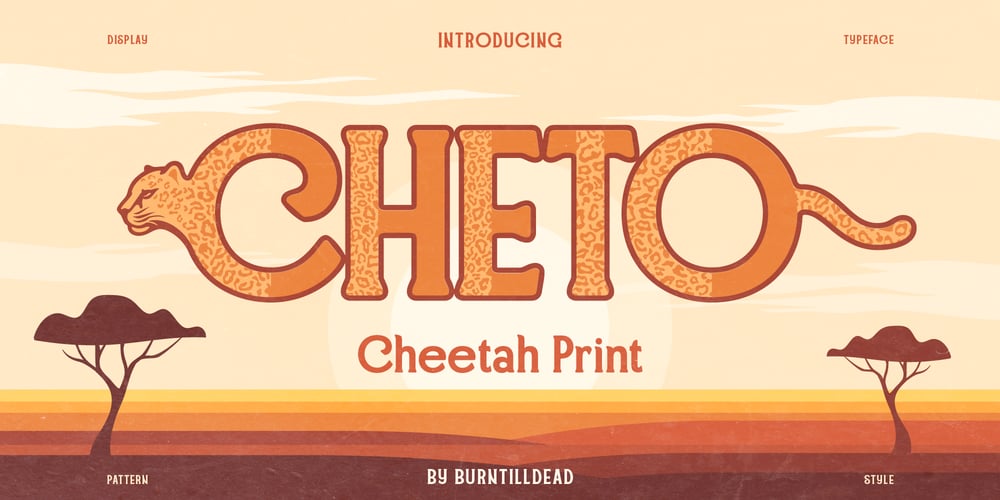
Cheto Font Family was designed by Eric Kurniawan and published by Burntilldead. Cheto contains 3 styles and family package options. Introducing Xyberon, a monoline font that show sophisticated futuristic and modern. This font has regular and slant style. Where sleek design meet futuristic flair, transforming your creations into visions of tomorrow. Xyberon is a futuristic neon and its really stands out in branding, headlines and artistic projects. Features: A – Z set (uppercase & lowercase) Number Punctuation Ligature Multilingual